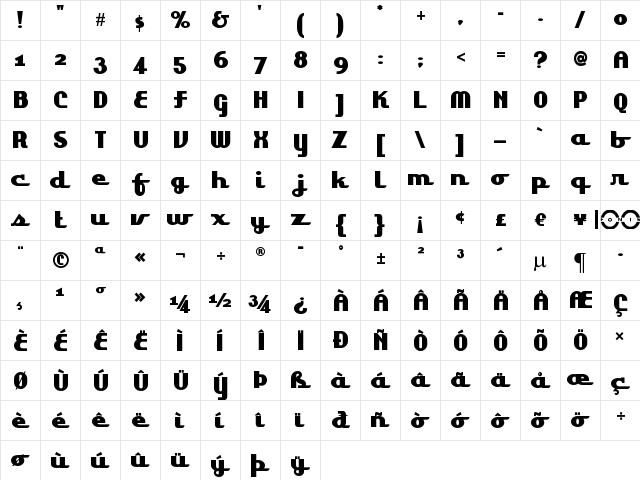
Lakeshore Drive NF Regular
Design Context for Lakeshore Drive NF Typeface
Lakeshore Drive NF is a composed and adaptable typeface that performs quietly and consistently across a wide range of design contexts.
Pro Tip: Use Lakeshore Drive NF in both headline and body roles to test its range before committing to a single application.